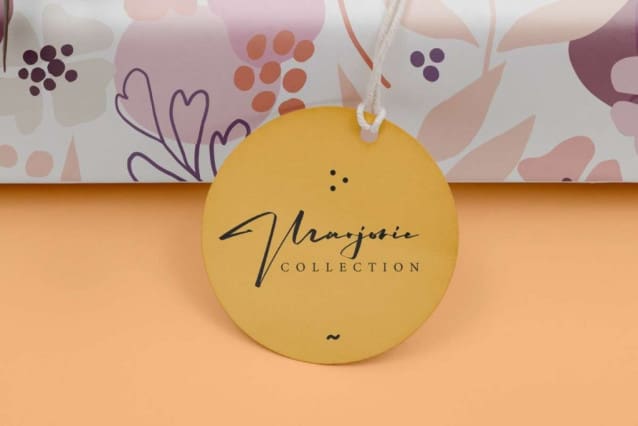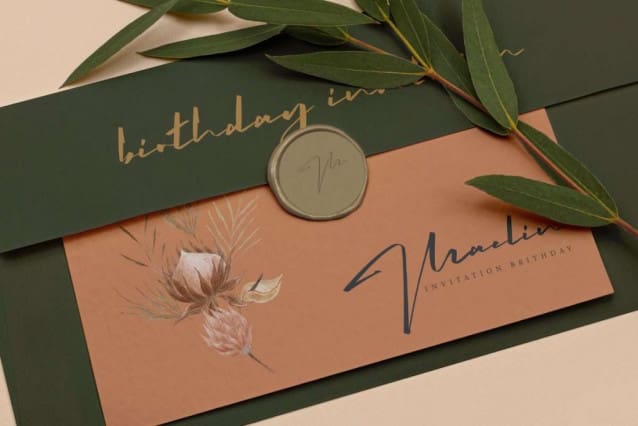
History Sign Font
History Sign Font is a stylish bold signatures script font with unique style. This font is made from a bold brush that carries a classic concept and still easy to read. This font will be suitable for many industries, such as advertisement, beauty product, event or wedding organizer, fashion, florist, handcraft, homeware, photography, and more!
History Sign Font includes full set of Uppercase and Lowercase Basic Characters, Numerals and Punctuation. This font also contain Alternate, Ligature, and Swoosh characters that will catch your eye and beg to be incorporated into the design immediately, such as brand logo, brochure, business card, custom design, frame art, invitation, label, packaging design, quote, screen printing, stationery, website, etc.